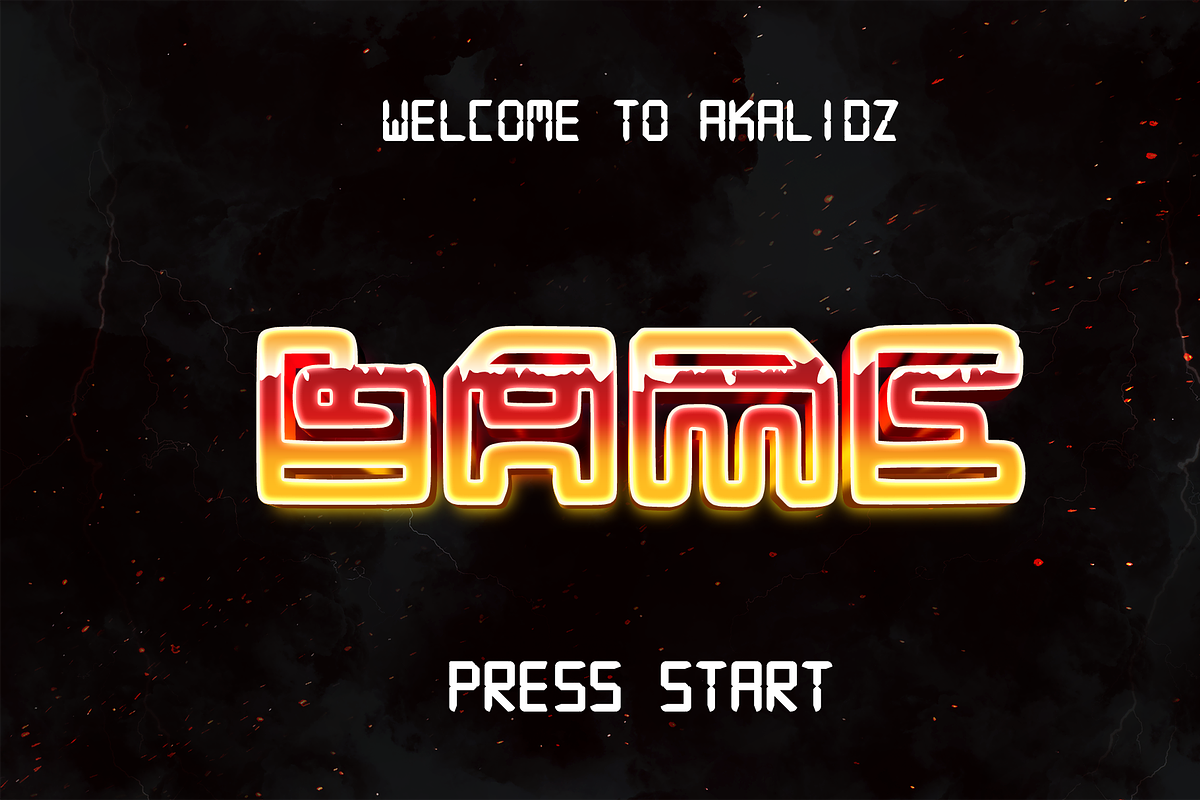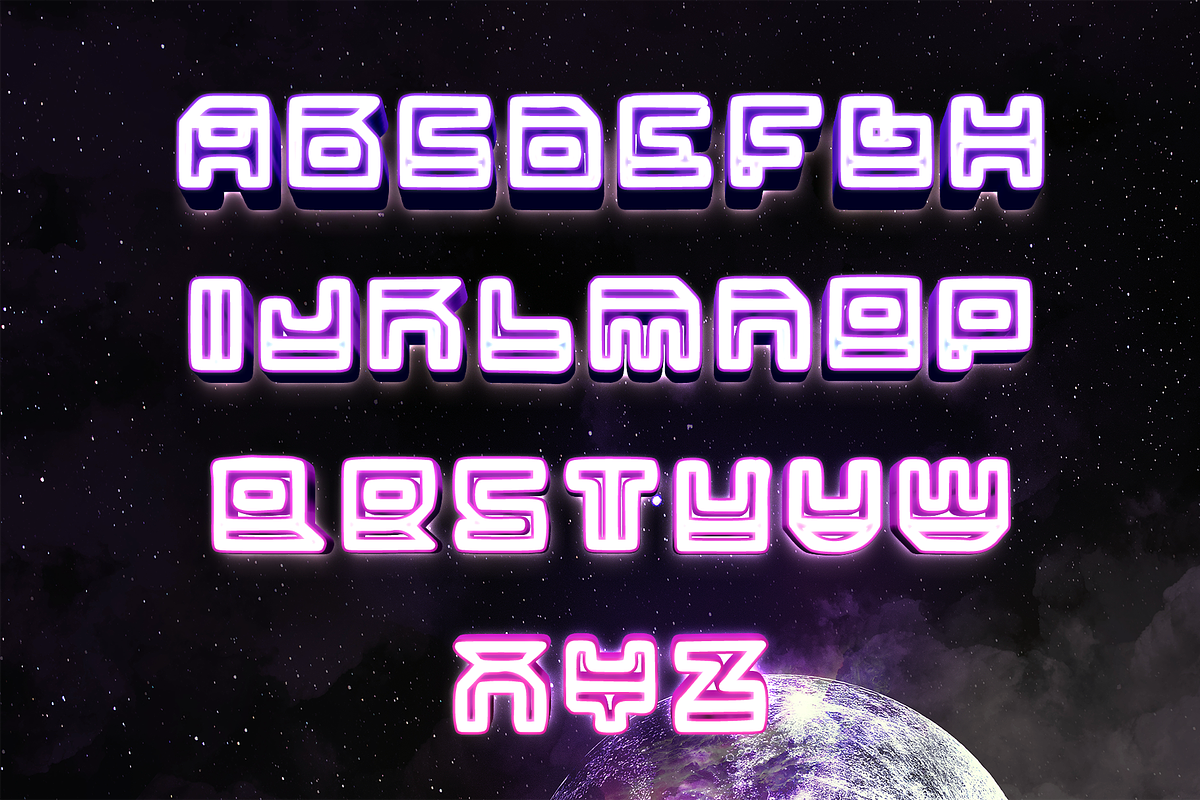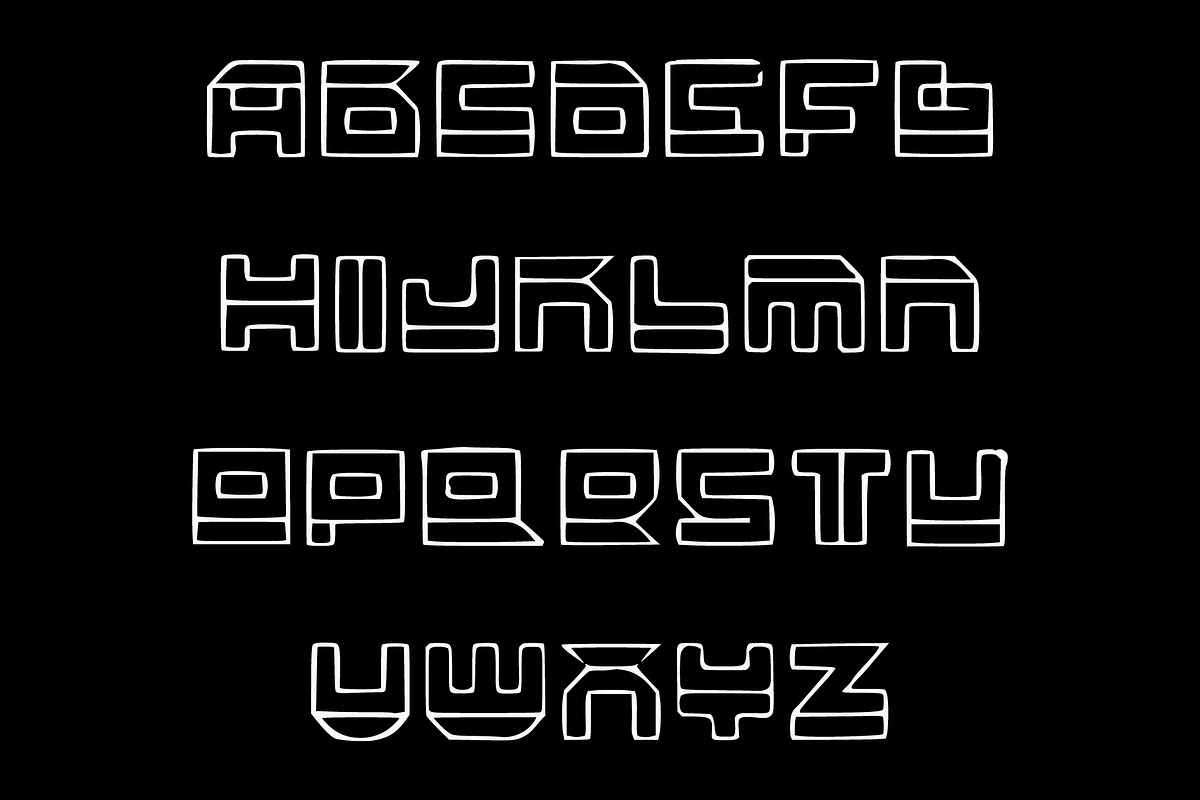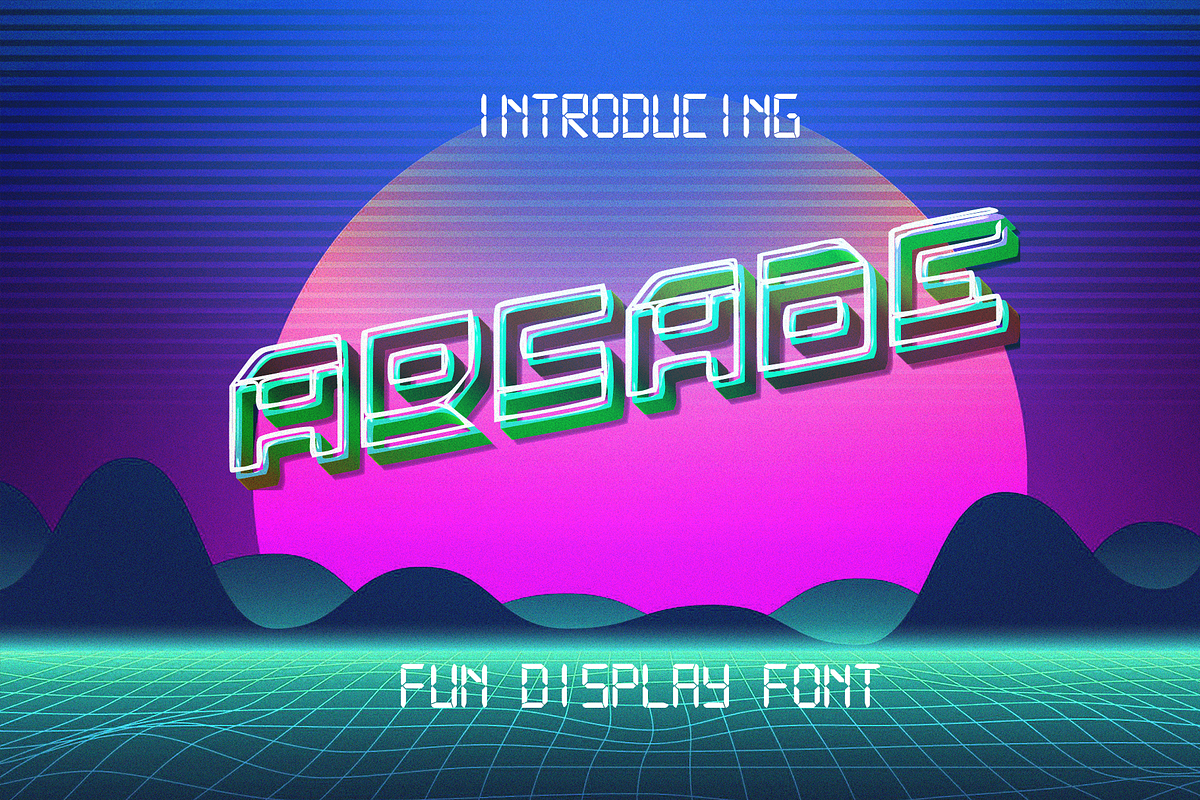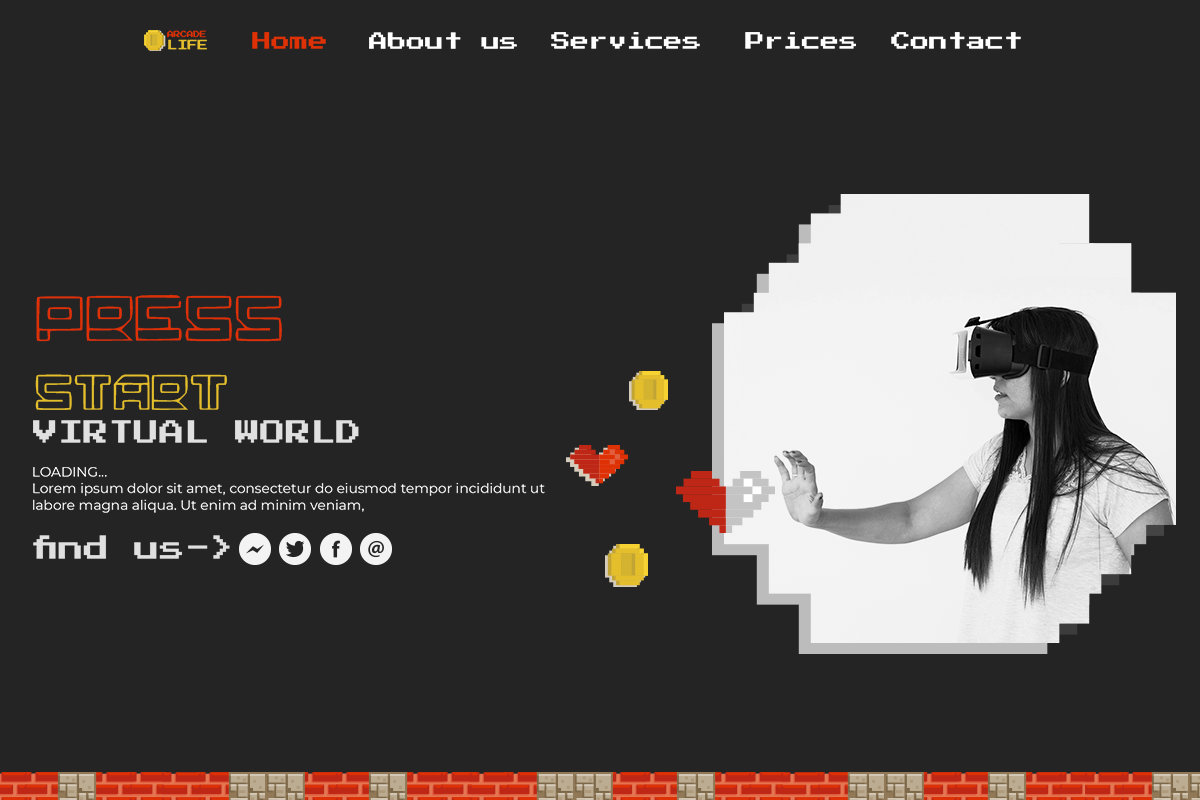
ARCADE
ARCADE is a chic and fun distinct display font. No matter the topic, this font will be an incredibly asset to your fonts’ library, as it has the potential to elevate any creation.